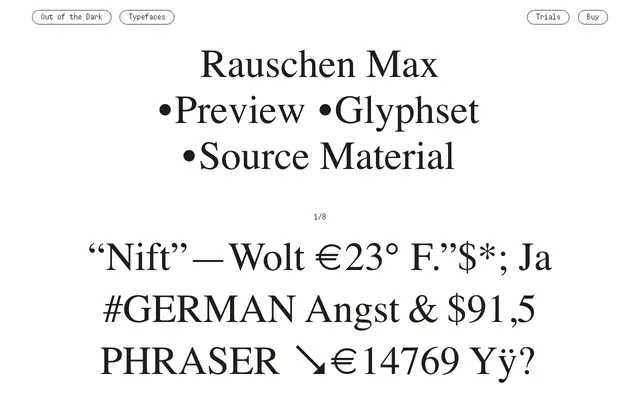
Rauschen Max
A single-style display typeface from Out of the Dark, related to the broader Rauschen family released by the Swiss foundry.
Rauschen Max is a one-style release sitting alongside Rauschen A and Rauschen B in Out of the Dark's catalogue, suggesting it occupies an extreme or maximal position within that family's design logic. The foundry's work tends toward the experimental and typographically confrontational, and the preview specimen with its mix of currencies, punctuation and uppercase German text reinforces a display-first intent. With a single style on offer, it is a focused tool rather than a versatile system.
The single-style release and the preview specimen suggesting a bold, expressive character point to a display-oriented sans, positioned within Out of the Dark's experimental typeface catalogue.